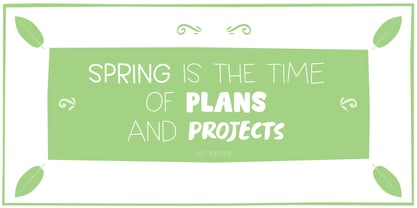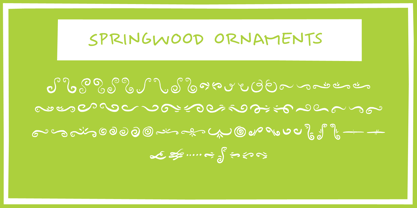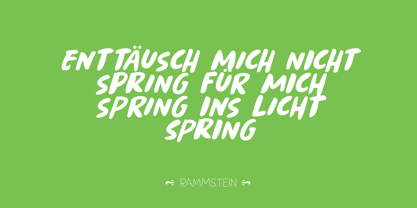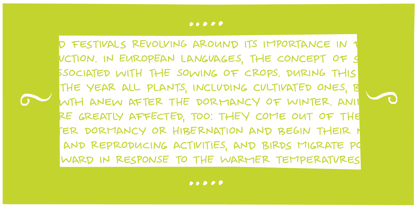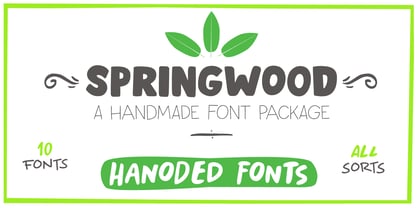
Springwood Font
This Springwood Font is perfect for forest conservation branding, natural wood products, eco-friendly furniture companies, outdoor camping equipment, sustainable forestry materials, nature retreat centers, wooden craft workshops, organic garden centers, environmental restoration projects, and fresh woodland communications.
What makes this Springwood Font exciting is its natural renewal that captures the fresh growth and organic vitality of springtime forest environments and woodland sustainability. The font features organic letterforms with woodland characteristics that convey natural freshness, forest authenticity, and sustainable growth. Its woodland character and spring-inspired design make it ideal for brands seeking to communicate environmental excellence, natural sustainability, and forest conservation in outdoor and environmental markets.
The Springwood Font family includes light, regular, medium, and bold weights with forest alternates, organic variants, and natural flourishes. This comprehensive woodland font family provides designers with fresh typographic tools to create sustainable compositions while maintaining the forest character essential for environmental brands and outdoor communications.
Eco-friendly companies and forest conservation organizations consistently choose Springwood Font Free Download for projects requiring authentic woodland appeal and environmental sustainability credibility. This font's distinctive natural character perfectly captures the forest excellence and woodland beauty that resonate with audiences who appreciate environmental conservation, sustainable forestry, and brands that embody natural growth and forest stewardship.
The organic construction of Springwood Font showcases naturally designed letterforms with woodland proportions that ensure exceptional freshness across all environmental applications. Its forest appearance and natural character create memorable impressions while maintaining the readability necessary for effective environmental communication and woodland materials.
Professional designers appreciate how Springwood Font brings immediate woodland authenticity and environmental excellence to brand communications. The font's natural nature allows organizations to communicate forest sustainability and woodland beauty while maintaining the professional quality necessary for effective positioning in environmental and outdoor markets.
The refreshing appeal of Springwood Font makes it particularly effective for brands emphasizing forest conservation, natural sustainability, and woodland excellence. Its organic character resonates strongly with audiences who appreciate environmental stewardship, forest beauty, and brands that represent the fresh growth and natural vitality of sustainable woodland environments.
Whether developing branding for sustainable forestry companies or creating materials for environmental conservation organizations, Springwood Font Free Download provides the natural typographic foundation that woodland brands need to communicate their environmental excellence, forest sustainability, and the organic beauty that defines woodland conservation and natural environmental achievement.